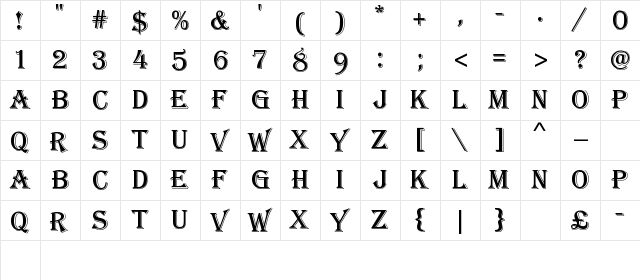
Stupido Regular
Design Context for Stupido Typeface
Stupido is a composed and adaptable typeface that performs quietly and consistently across a wide range of design contexts.